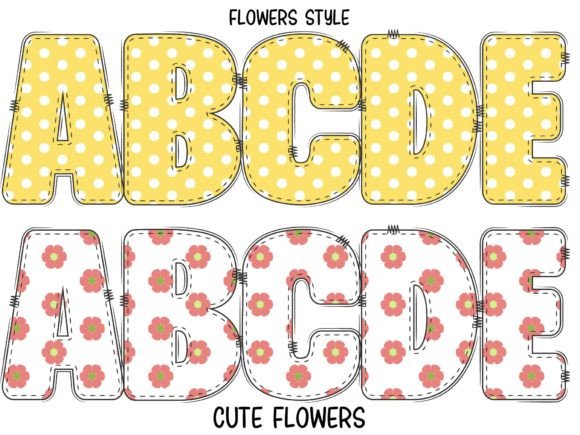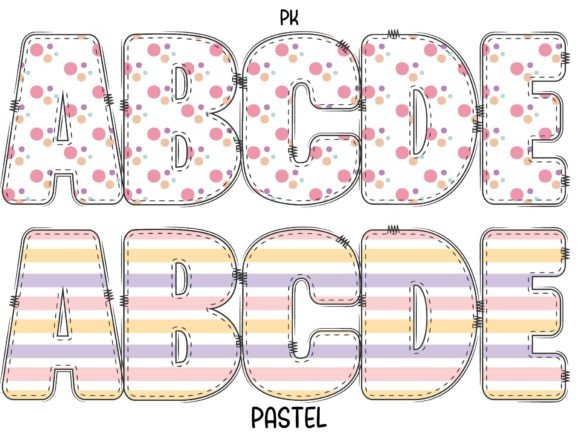
Introducing Flowers Style Font: Add a Touch of Whimsy to Your Designs
Are you tired of using the same old fonts in your designs? Do you want to add a touch of personality and whimsy to your projects? Look no further than Flowers Style Font, a vibrant color font that is sure to bring your words to life. This adorable font features floral designs nestled inside each letter, giving it a playful and charming aesthetic that is perfect for designers and crafters alike.
What is Flowers Style Font?
Flowers Style Font is a unique and delightful typeface that is designed to add a touch of elegance and sophistication to your designs. With its vibrant colors and adorable floral designs, this font is perfect for a variety of projects, from wedding invitations and party decorations to social media graphics and blog posts.
Key Features of Flowers Style Font
- Vibrant Colors: Flowers Style Font features vibrant colors that are sure to grab attention and add a pop of color to your designs.
- Adorable Floral Designs: Each letter in the font features an adorable floral design, giving it a playful and charming aesthetic.
- Playful and Whimsical: This font is perfect for designers and crafters who want to add a touch of whimsy and personality to their projects.
- Unique and Delightful: Flowers Style Font is a one-of-a-kind typeface that is sure to make your designs stand out.
Uses for Flowers Style Font
Flowers Style Font is a versatile typeface that can be used for a variety of projects, including:
- Wedding Invitations: Add a touch of elegance and sophistication to your wedding invitations with this beautiful font.
- Party Decorations: Use Flowers Style Font to create adorable party decorations, such as banners, garlands, and more.
- Social Media Graphics: Add a pop of color and personality to your social media graphics with this vibrant font.
- Blog Posts: Use Flowers Style Font to add a touch of whimsy and personality to your blog posts.
- Crafting Projects: This font is perfect for crafters who want to add a personal touch to their projects, such as scrapbooking, card making, and more.
Tips for Using Flowers Style Font
Here are a few tips for using Flowers Style Font in your designs:
- Use it sparingly: Because of its bold and playful design, Flowers Style Font is best used sparingly. Use it as a headline or title font, and pair it with a simpler font for body text.
- Experiment with colors: While the font comes in a variety of vibrant colors, don’t be afraid to experiment with different color combinations to find the one that works best for your design.
- Pair it with simple graphics: Flowers Style Font pairs well with simple graphics, such as illustrations or icons. Use it to add a touch of personality to your graphics.
Flowers Style Font is a unique and delightful typeface that is sure to add a touch of whimsy and personality to your designs. With its vibrant colors and adorable floral designs, this font is perfect for designers and crafters alike. Whether you’re creating wedding invitations, party decorations, or social media graphics, Flowers Style Font is a great choice. So why not give it a try and see how it can bring your words to life?